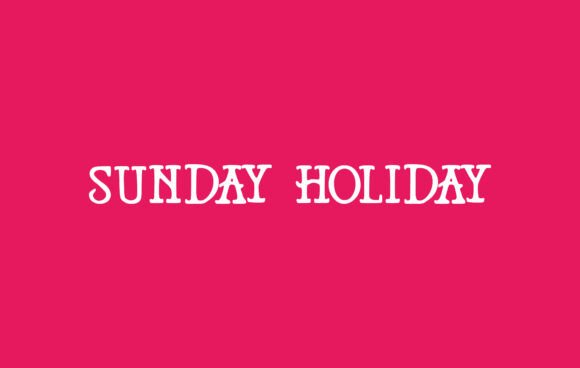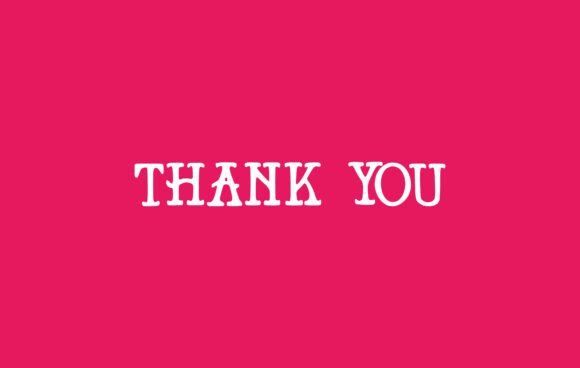
The Perfect Brushstroke: Unlocking Creativity with the Bacupari Font
Have you ever sat at your desk, surrounded by blank paper and a flurry of ideas, desperately searching for the perfect font to bring your vision to life? I know I have. And sometimes, all it takes is the right brushstroke to set your imagination free.
Enter the Bacupari Font, a charming and authentic handwritten font that’s sure to capture the hearts of designers and creatives everywhere. Expertly designed to elevate your work, this versatile font is perfect for everything from magazine headlines to social media posts, wedding invitations, and more. Whether you’re looking to add a touch of romance or whimsy to your designs, the Bacupari Font is the perfect tool for the job.
Bacupari Font Key Features
- Unique Characteristics: Bacupari Font features a unique blend of modern and traditional design elements, making it perfect for creating visually appealing and distinctive visual content.
Bacupari Font Review
At first glance, the Bacupari font seems like a great addition to any design project. ✨ The font’s unique blend of geometric and hand-drawn elements gives it a quirky, artistic feel that can add a lot of character to text-based designs. The font’s versatility is also a major plus, as it works well in a wide range of contexts, from body text to headings and even logo design.
- ✨ Unique and artistic design style
- ✨ Highly versatile, suitable for a wide range of design applications
- ✨ Well-suited for projects that require a creative, handmade feel
However, there are a few limitations to consider. ⚠️ The font’s irregularities can sometimes make it difficult to read, particularly at smaller font sizes. Additionally, the font’s uniqueness can also be a double-edged sword – while it’s great for adding character to a design, it may not be the best choice for projects that require a more formal or traditional look.
Overall, I think the Bacupari font is a great choice for designers who are looking to add a bit of personality to their projects. While it may not be suitable for every design context, it’s a great option for anyone who wants to create something truly unique and eye-catching.
For best results, use Bacupari font for headings and titles, as its unique design is most effective in larger font sizes.
Use Bacupari font for creative projects, such as typography-based art or custom illustrations.
Use Bacupari font for presentations or documents that require a unique and eye-catching font.
For best results, use Bacupari font in combination with bold colors and contrasting backgrounds.
1. Creative typography projects
2. Custom illustrations and graphics
3. Unique presentations and documents
Alternatives to Bacupari Font
Playfair Display is an elegant, high-end serif font suitable for luxury brands, fashion, and high-end publications. It features intricate details and beautiful connections between letters, making it perfect for creating a sophisticated and luxurious atmosphere. Playfair Display is more elegant and luxurious compared to Bacupari Font, which has a more playful and vintage feel.
Carolyna Pro is a modern, elegant sans-serif font ideal for corporate identities, fashion, and luxury brands. It features clean lines, geometric shapes, and a sophisticated feel, making it perfect for creating a professional and modern atmosphere. Carolyna Pro is more modern and sleek compared to Bacupari Font, which has a more vintage and whimsical feel.
Q: What is the recommended font size for the Bacupari Font?
The recommended font size for the Bacupari Font varies depending on the application and intended use. For body text, a font size between 12-14 points is suitable, while for headings and titles, a font size between 18-24 points is recommended.